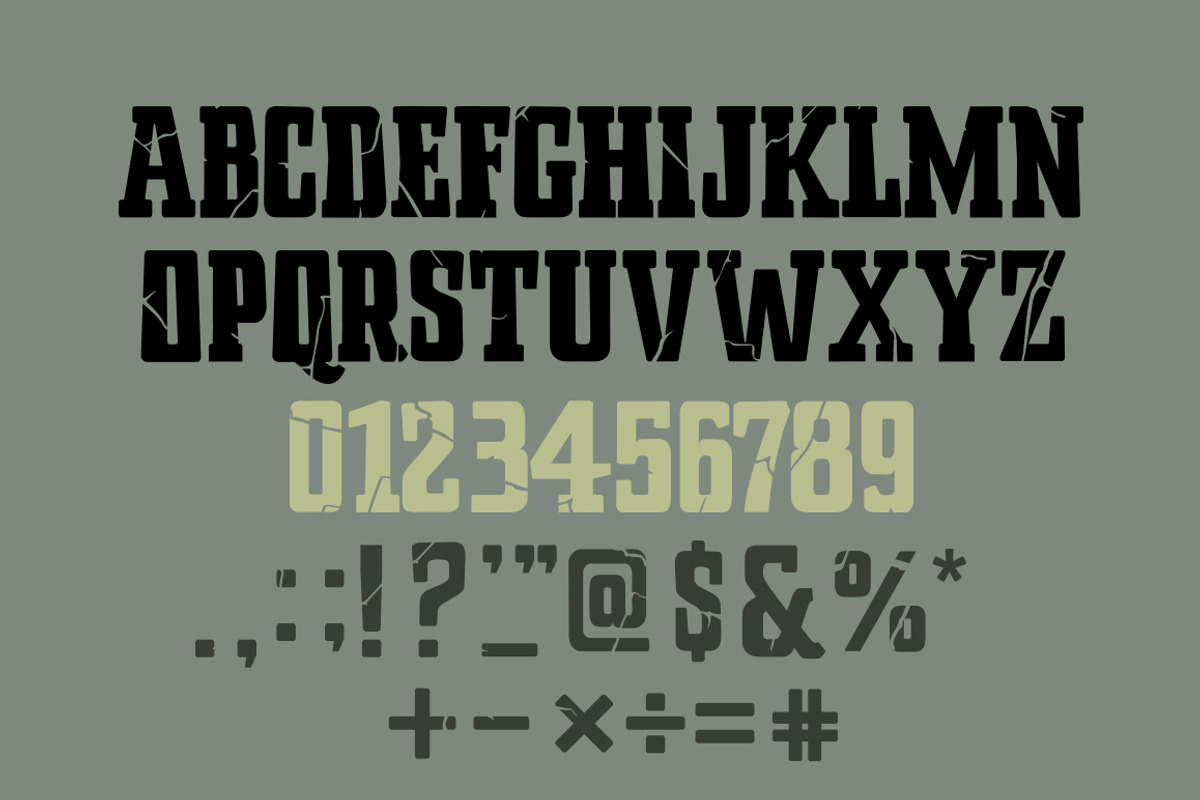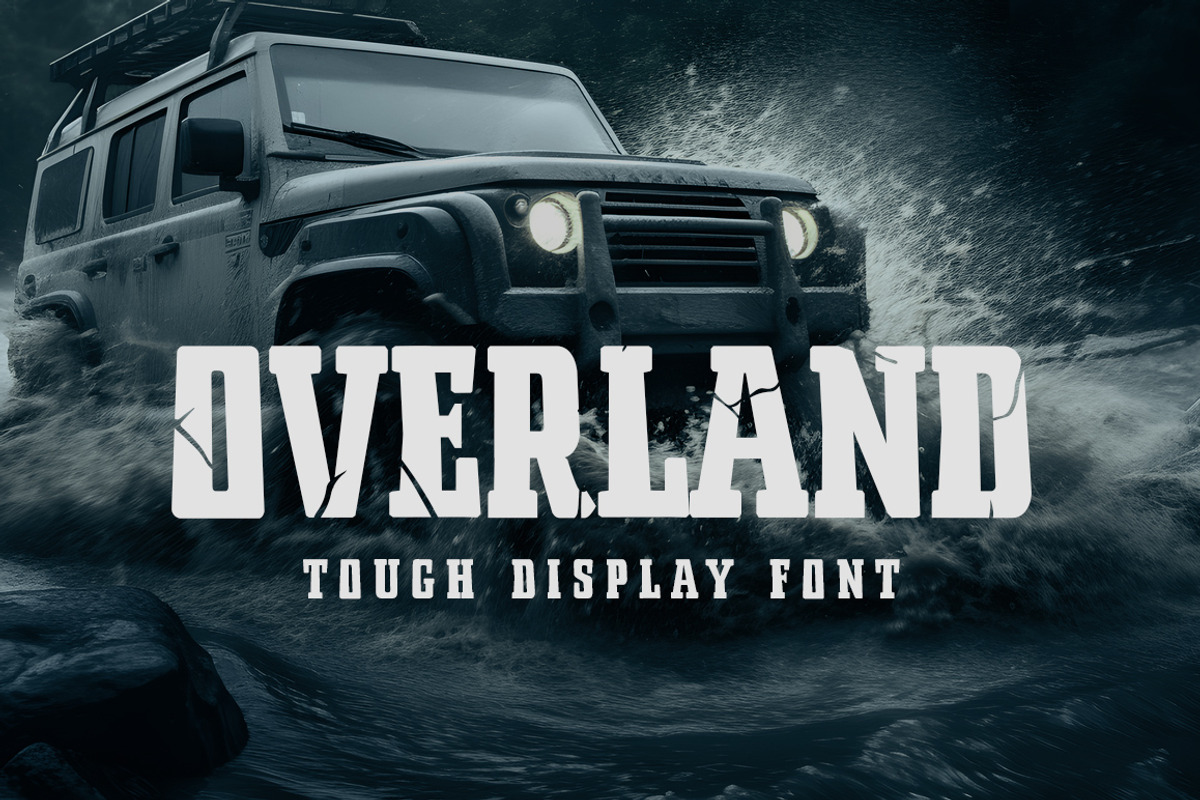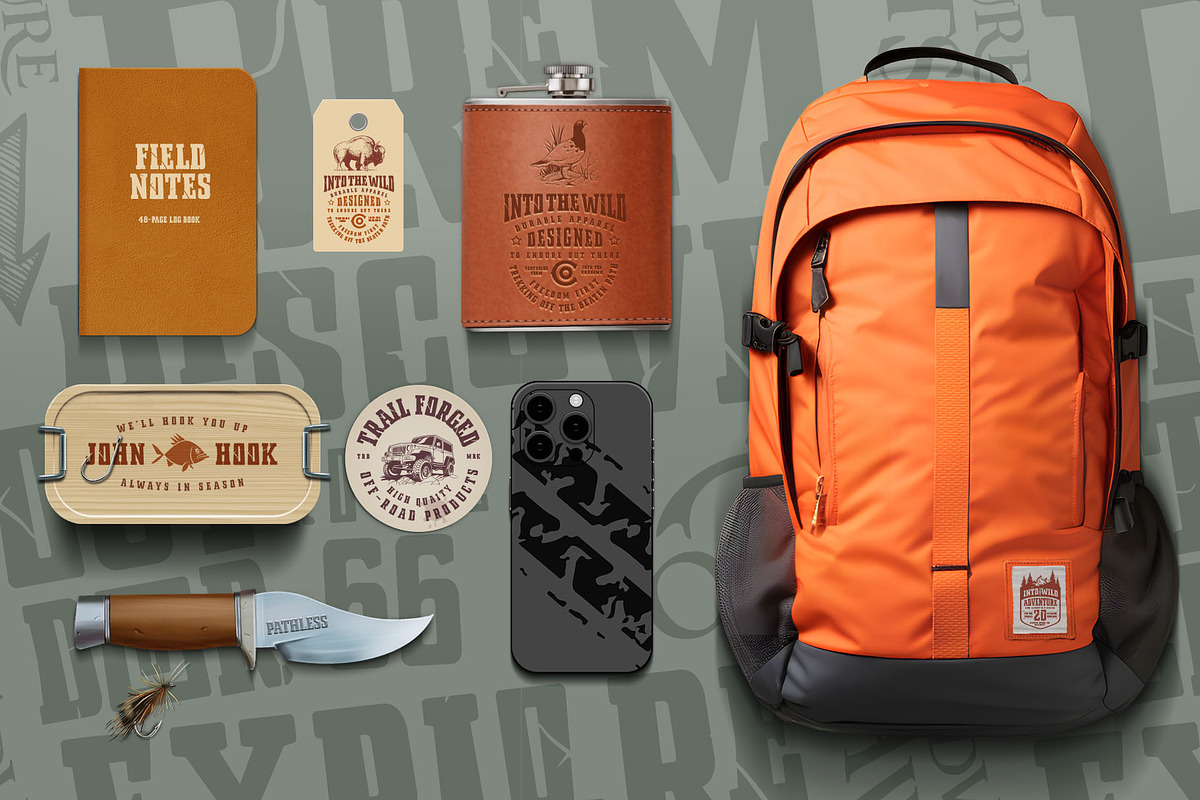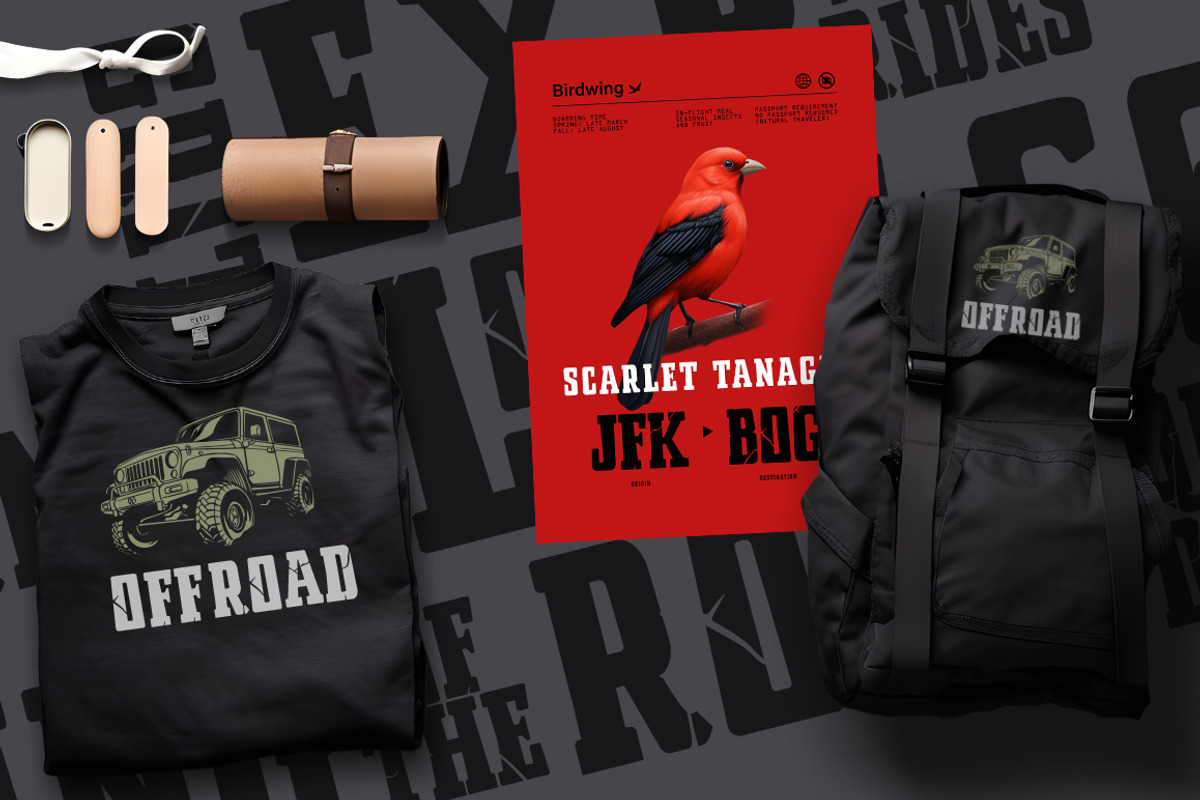
Overland Display Font
Introducing our latest creation in the world of typography - a dynamic, all-caps display font designed specifically for the adventurous spirit of outdoor and off-road branding. This font stands out with its very bold and robust appeal, making it an ideal choice for logos and eye-catching headlines. Crafted to capture the essence of the wild, our font is available in two distinct styles: a gritty, rugged 'Distressed' version and a clean, sharp 'Regular' style.
Both styles of this display font boast an unyielding boldness, perfect for brands looking to make a strong statement. Its all-caps format adds to its commanding presence, ensuring that your brand's name is not just seen, but remembered. Whether it's for creating striking logos, impactful marketing materials, or captivating product packaging, this font elevates your design with its unmistakable character.